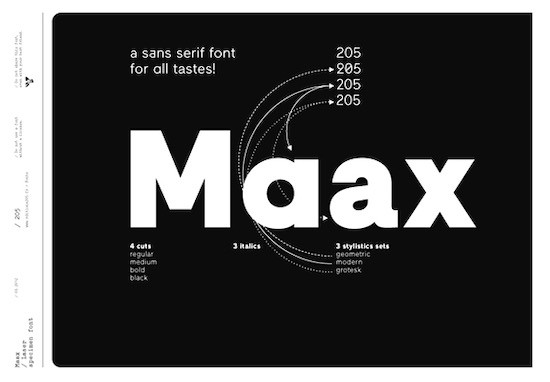
Maax Font is a bold sans serif typeface with a unique authentic style. It’s suitable for a vast variety of designs, for it’s a neat and simply stylish font.
Maax font has a set of powerful characters with a gorgeous design. It’s specialty is good for product design like a Barbershop name, T-shirt, drink product, Magazine, logo design, etc.
Maax Sans Serif Font
Maax Font